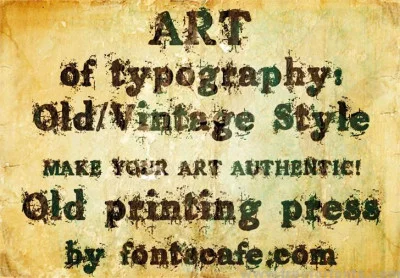
Old Printing Press Font
Old Printing Press Font is perfect for vintage branding, historical designs, antique shop logos, heritage product packaging, retro posters, traditional publishing projects, museum exhibition materials, classic book covers, nostalgic advertising, artisan labels, vintage newspaper designs, and any design project requiring an authentic historical printing aesthetic.
What makes Old Printing Press Font exciting is its authentic vintage character that transports viewers to the golden age of traditional printing and craftsmanship. The font's weathered textures and imperfect letterforms capture the essence of historical printing techniques, making it ideal for brands emphasizing heritage, authenticity, and timeless quality. Its nostalgic presence creates emotional connections with audiences appreciating history and traditional craftsmanship, while adding genuine character that distinguishes designs in modern markets.
The Old Printing Press Font family typically includes uppercase and lowercase characters, numerals, punctuation marks, and authentic distressed textures that replicate vintage printing effects.
Looking for the Old Printing Press Font? This remarkable typeface preserves the authentic beauty of historical typography, offering designers a genuine tool for creating vintage visual content. Whether you're developing heritage brand identities, crafting nostalgic marketing materials, or creating designs celebrating traditional printing arts, this font delivers the weathered authenticity and historical character needed to communicate timelessness and craftsmanship across all applications.